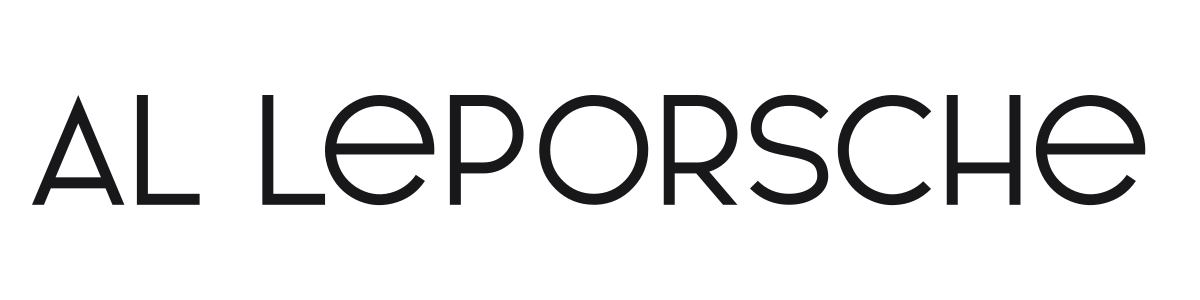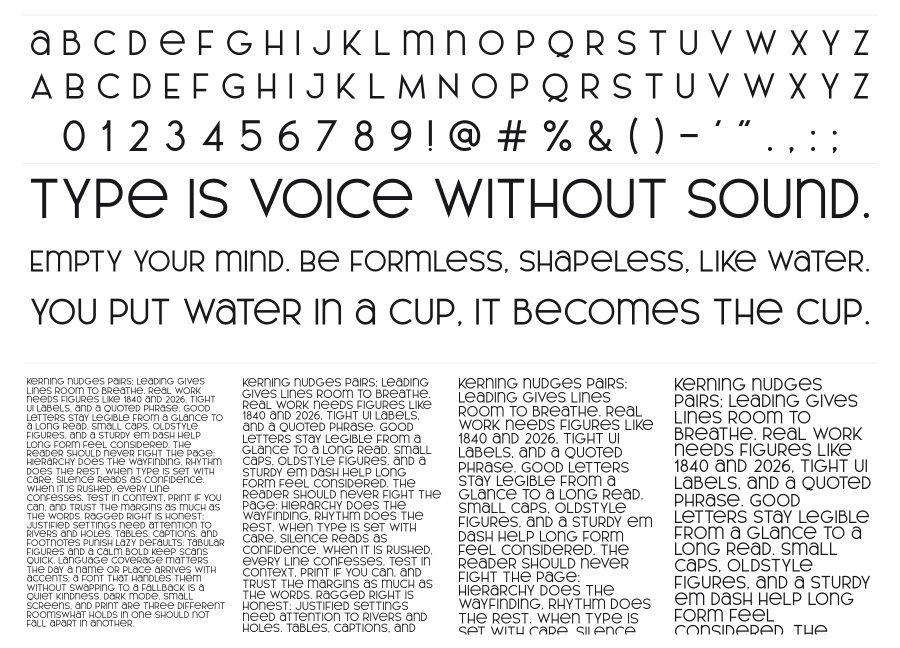
AL LePorsche
AL LePorsche is a light geometric sans with wide, airy spacing and a quietly distinctive character set that blends uppercase and lowercase forms. Circular bowl construction and near-monoweight strokes give it a refined Art Deco sensibility without feeling retro. It carries the cool restraint of European automotive and fashion branding.